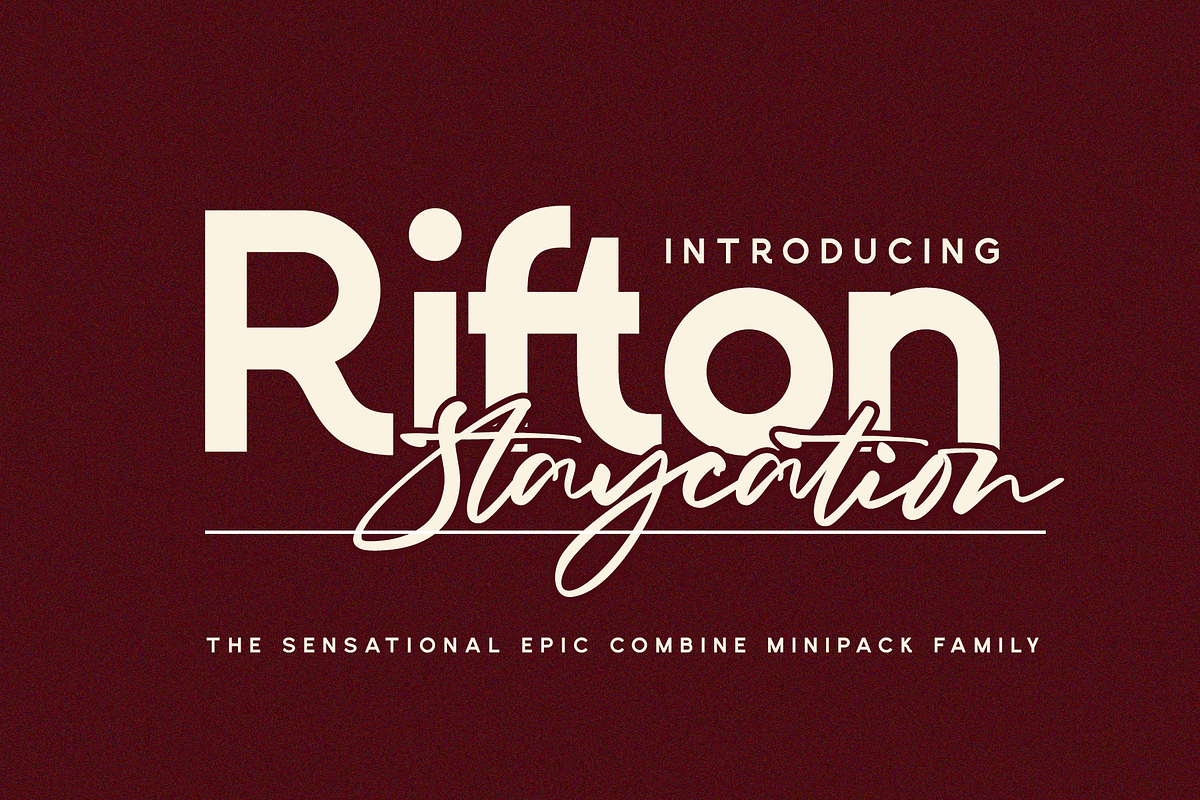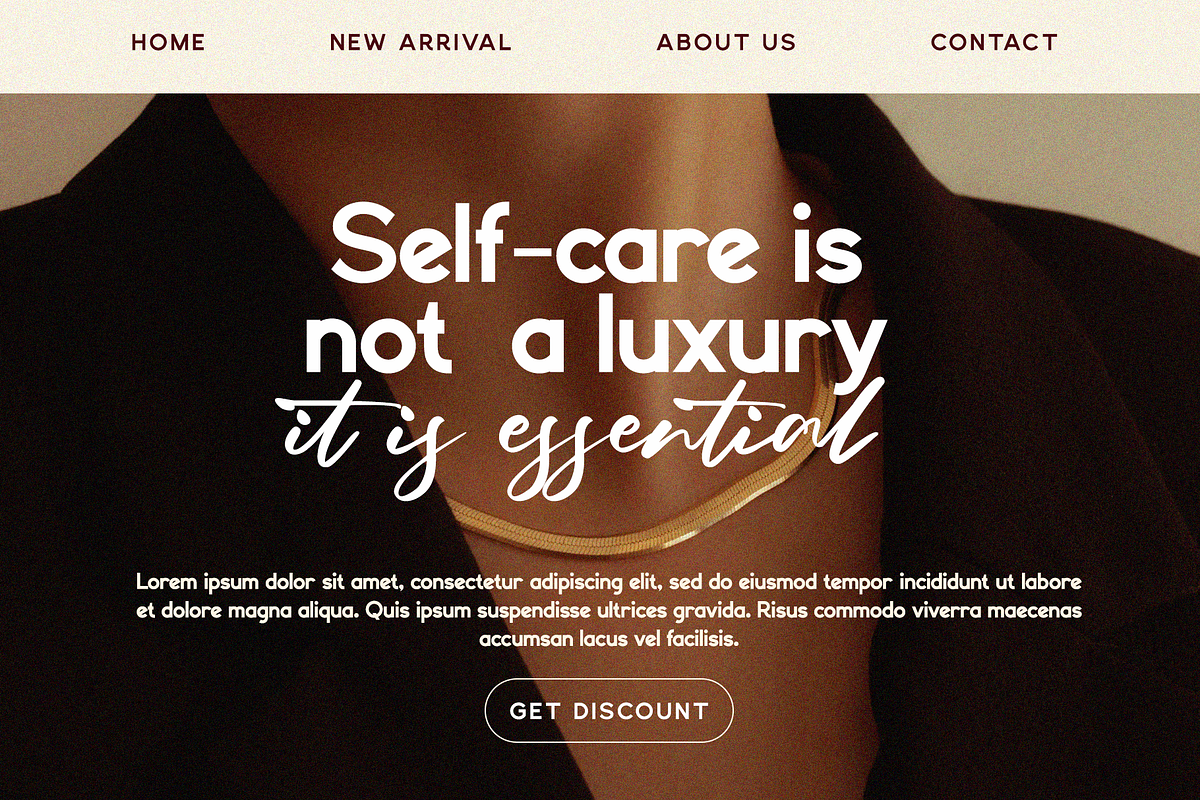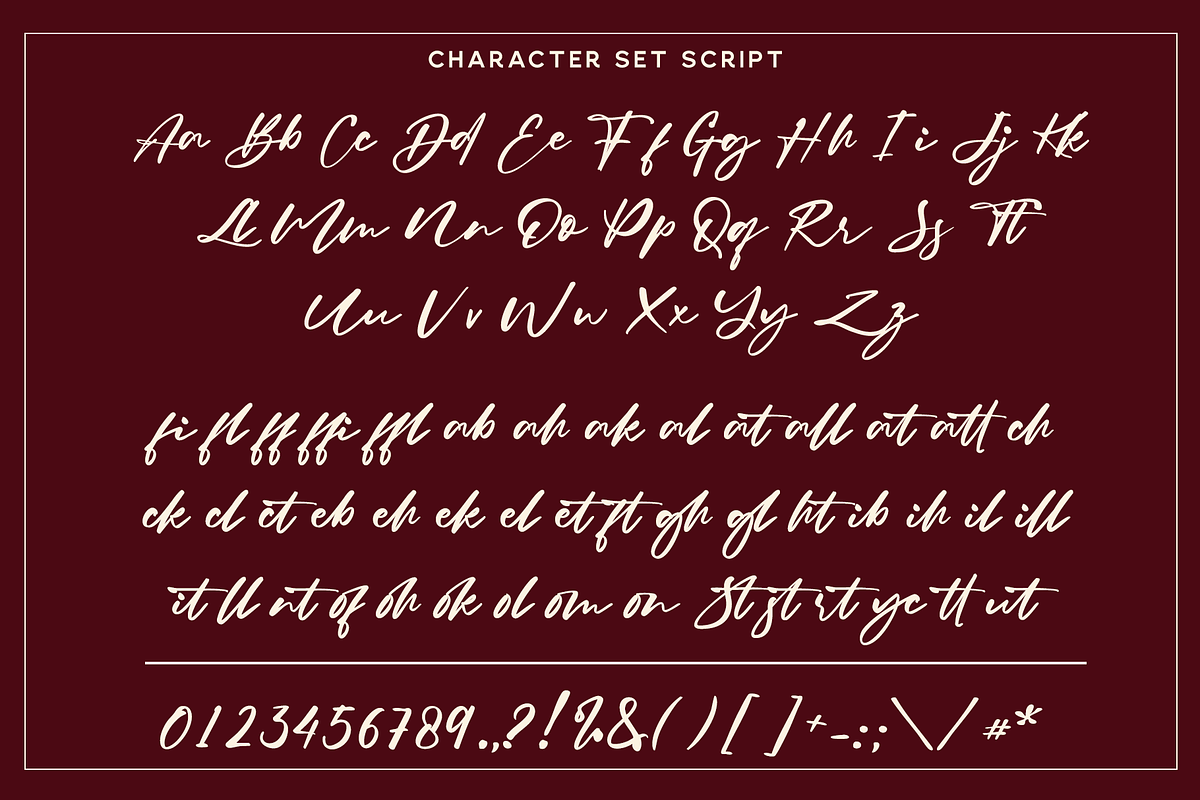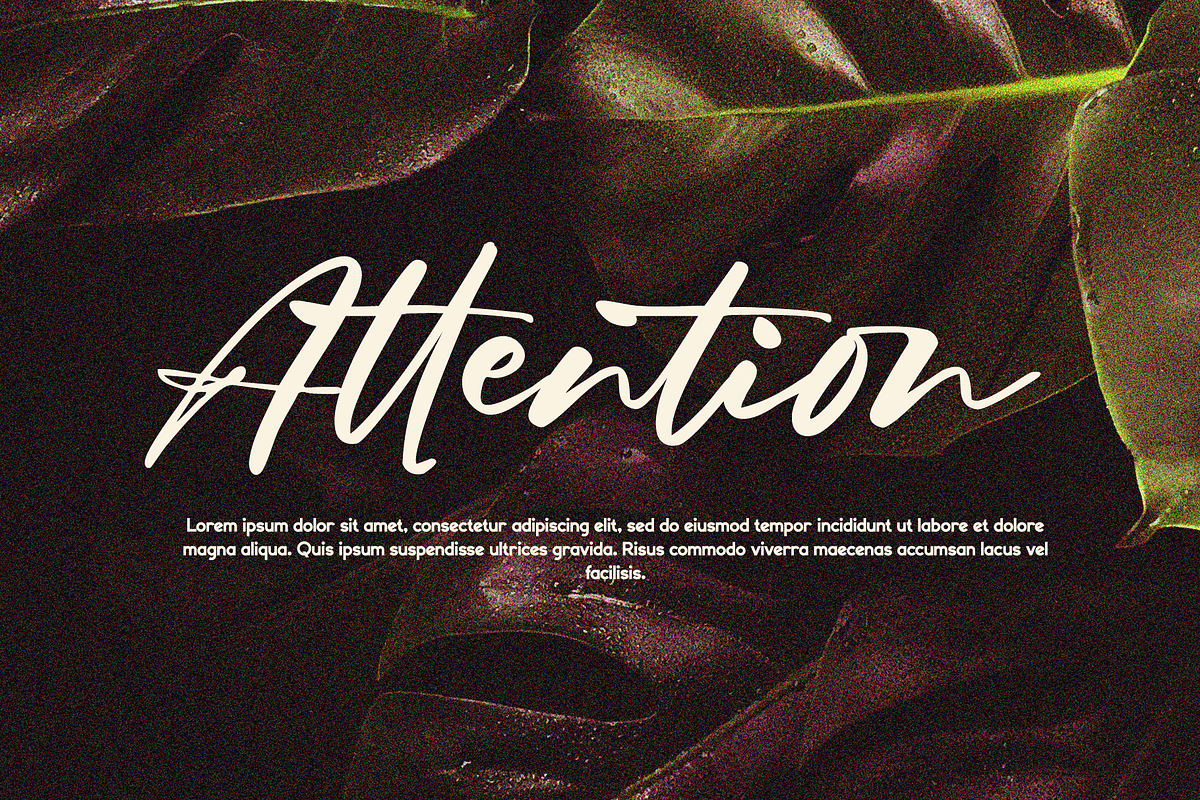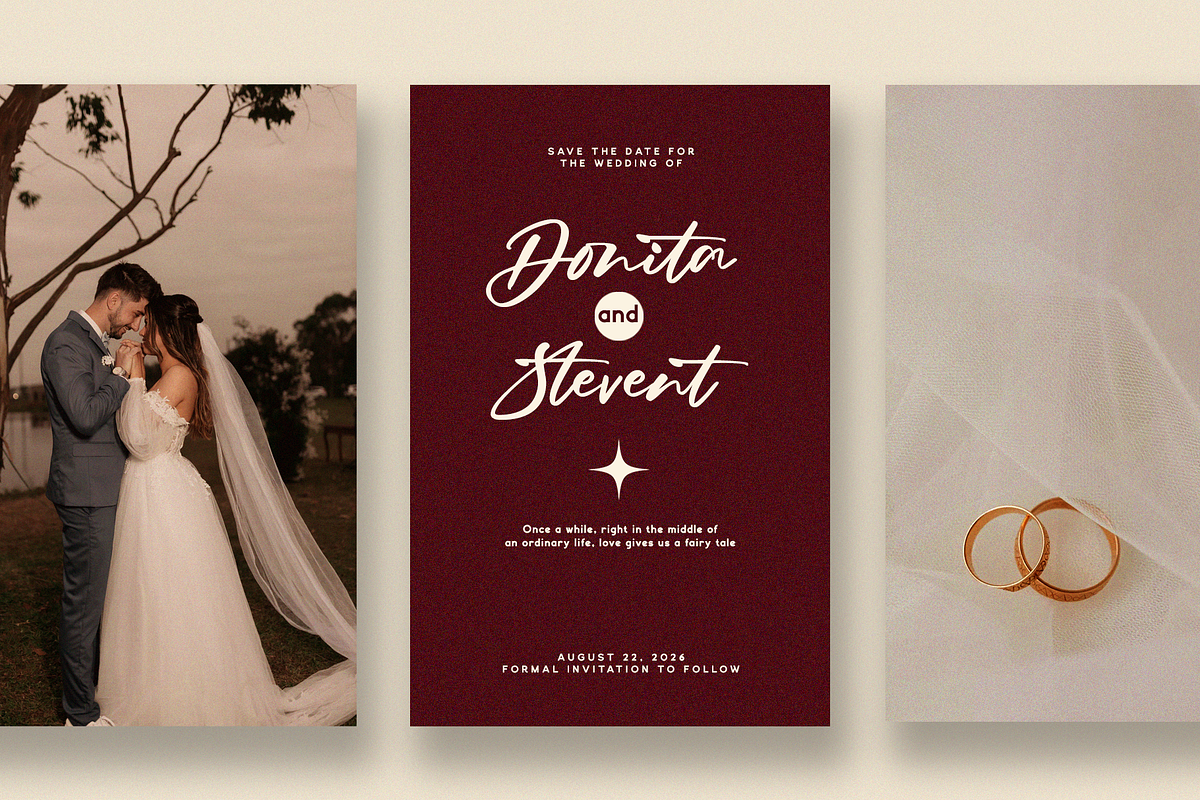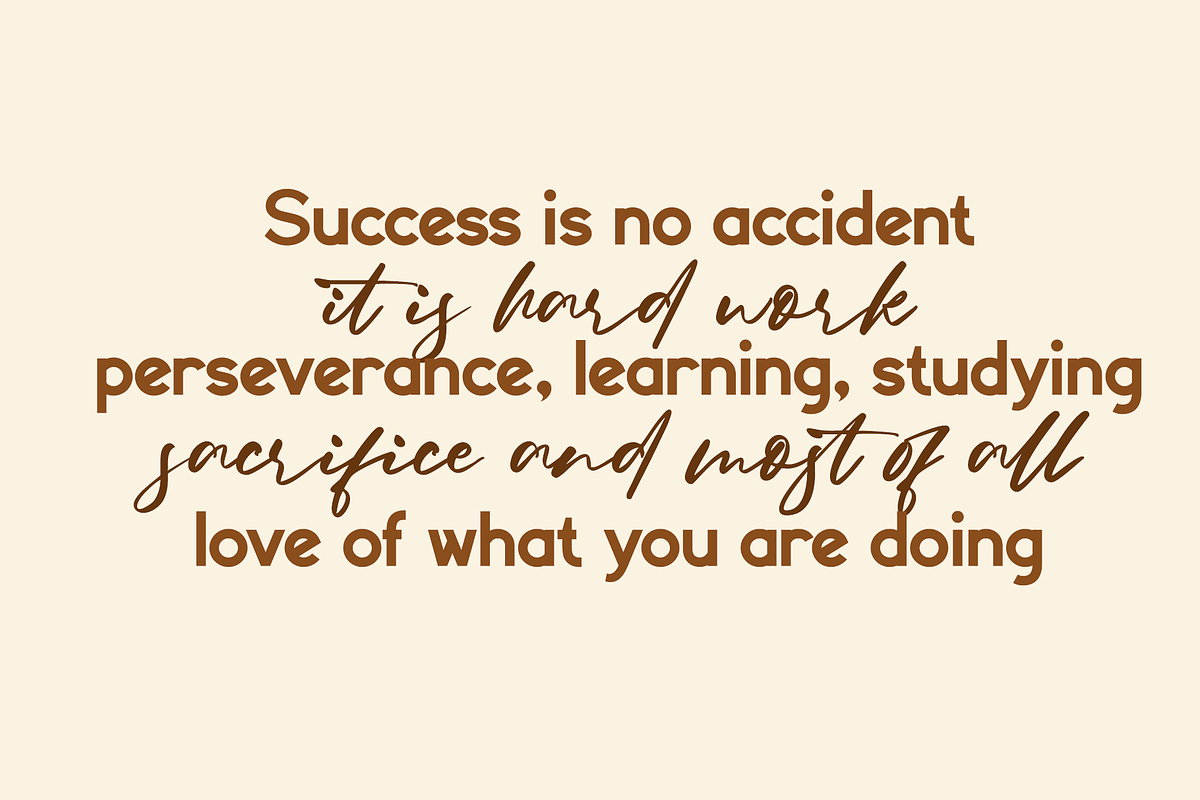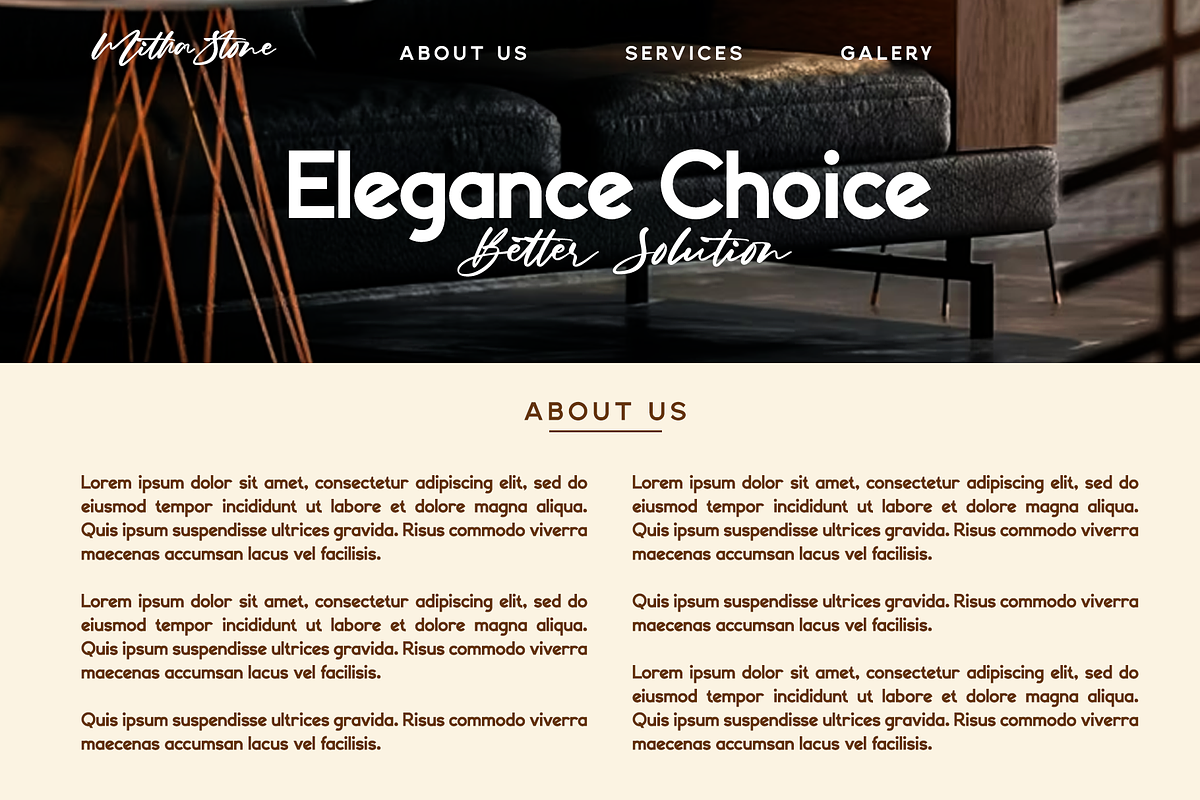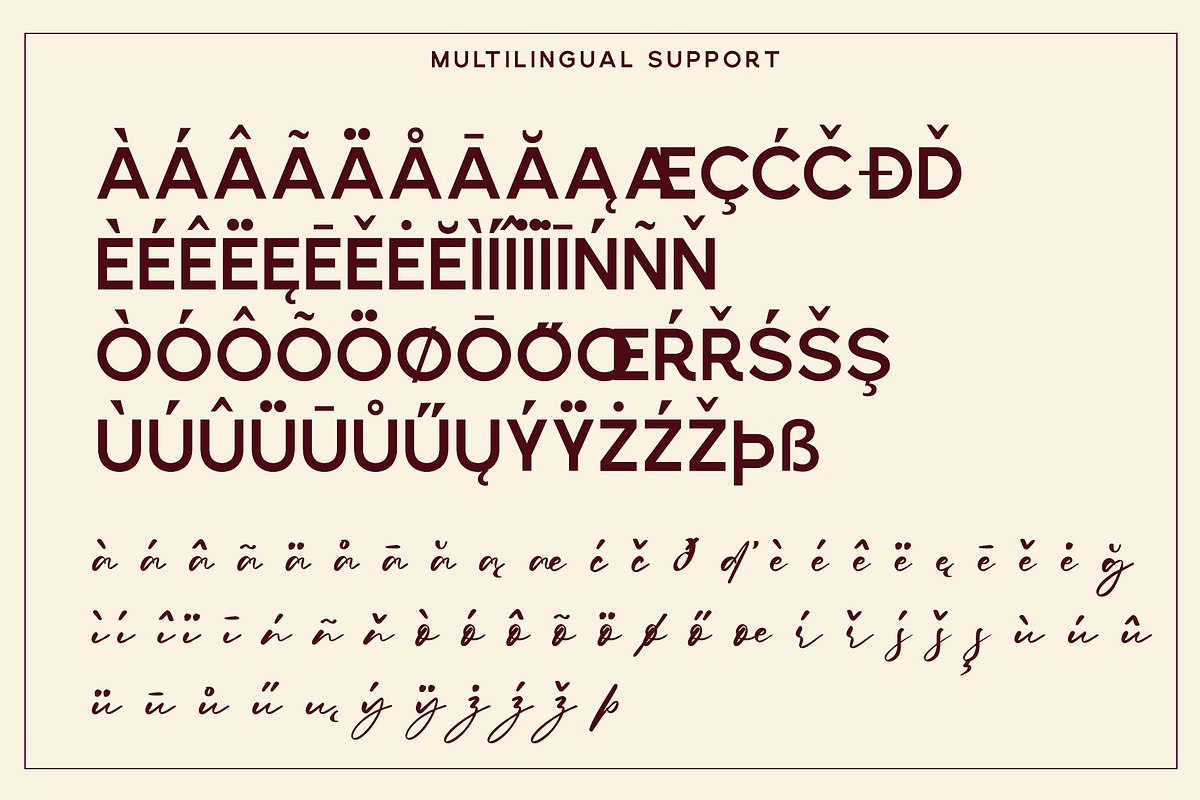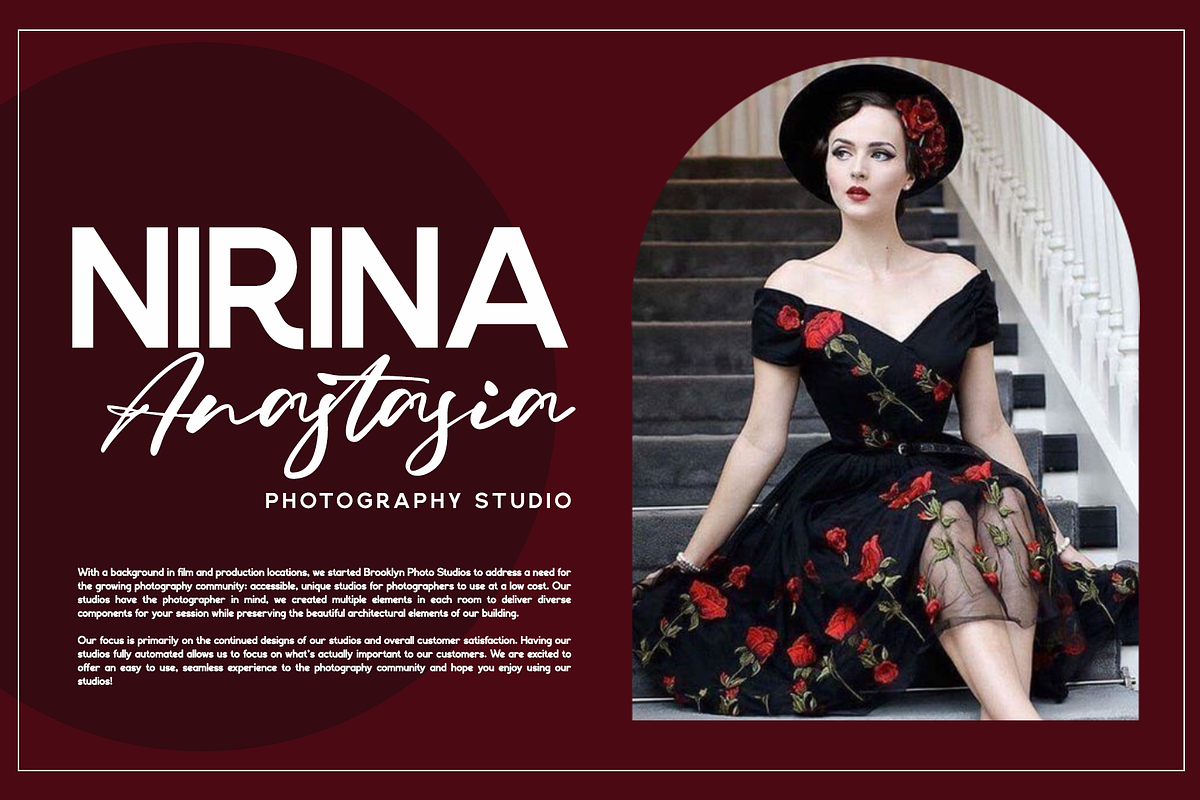
Rifton Staycation - Font Duo
Rifton Staycation is a versatile and elegant typeface family designed to bring warmth, personality, and modern sophistication to your creative projects. This family includes Sans, Sans Italic, and a beautifully crafted Script style, offering a perfect balance between clean structure and expressive flair.
The Sans style features a smooth, geometric construction with a contemporary feel—ideal for branding, editorial layouts, packaging, and digital interfaces. Its Sans Italic counterpart adds a subtle sense of motion and emphasis, perfect for highlighting key messages without losing clarity. Meanwhile, the Script style introduces a flowing, handwritten charm, making it perfect for signatures, invitations, logos, and creative headlines.
- Complete uppercase & lowercase character set
- Numerals and punctuation
- Ligatures (including fi, fl, ff, ffi, ft, st, and more)
- Elegant script alternates and smooth connections
- Clean and highly legible sans-serif structure
- Carefully spaced kerning for professional results
Benefits :
- Versatile Usage: Seamlessly combine Sans and Script styles for dynamic and visually appealing designs
- Professional Quality: Designed with precision to ensure readability across print and digital media
- Brand-Friendly: Perfect for logos, branding systems, social media graphics, and marketing materials
- Time-Saving: Built-in ligatures and alternates reduce the need for manual adjustments
Whether you're crafting a modern brand identity or adding a personal handwritten touch, Rifton Stoycation gives you the flexibility and style to elevate your work with ease.